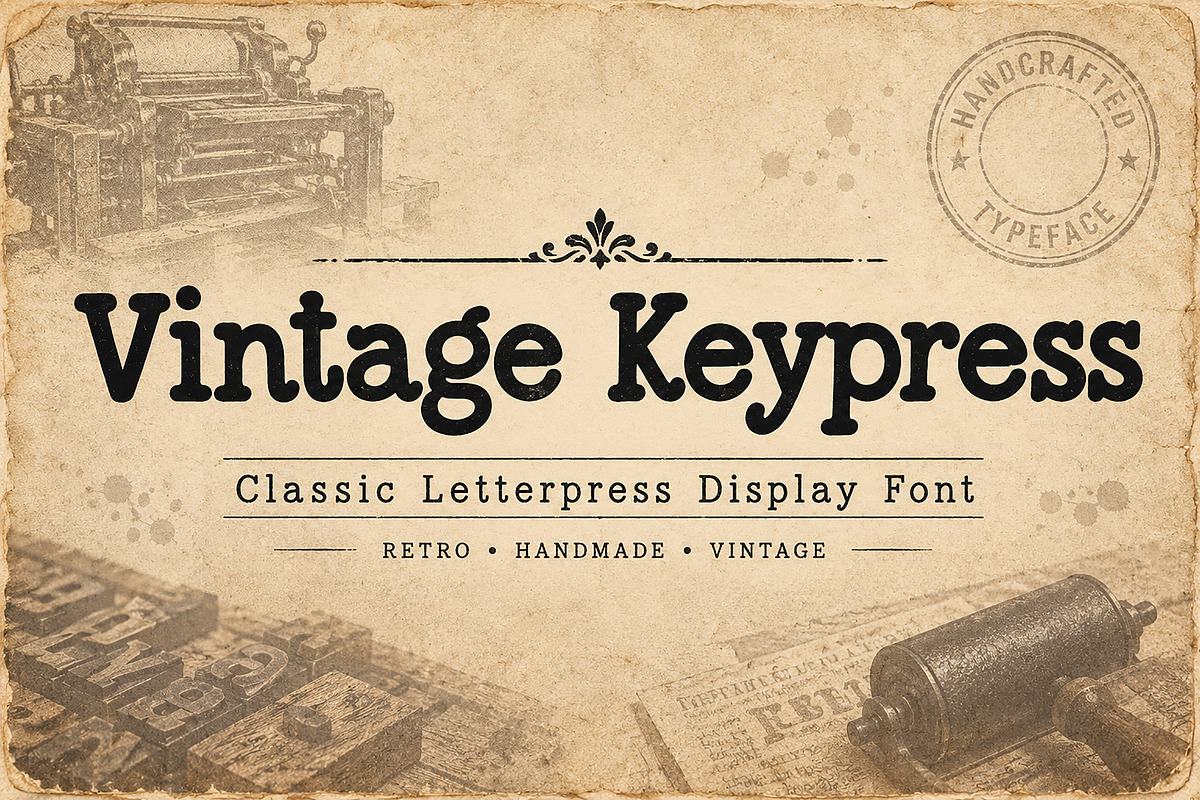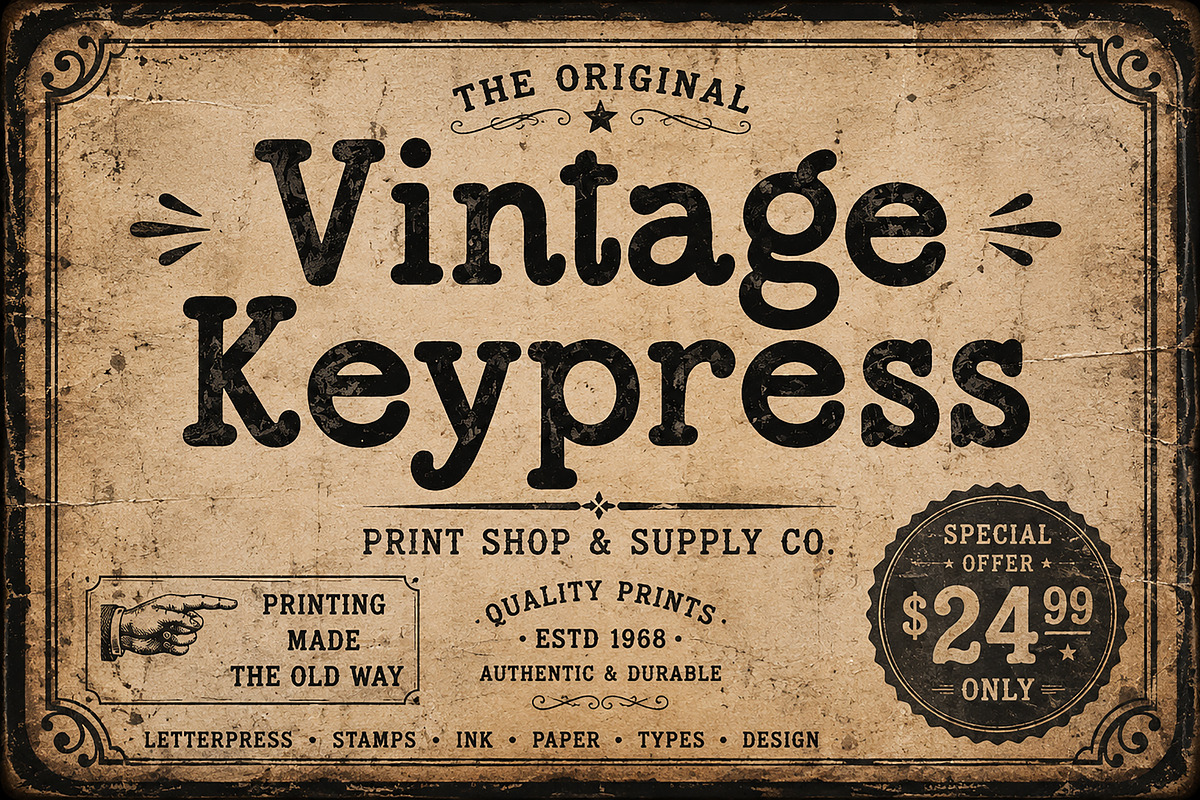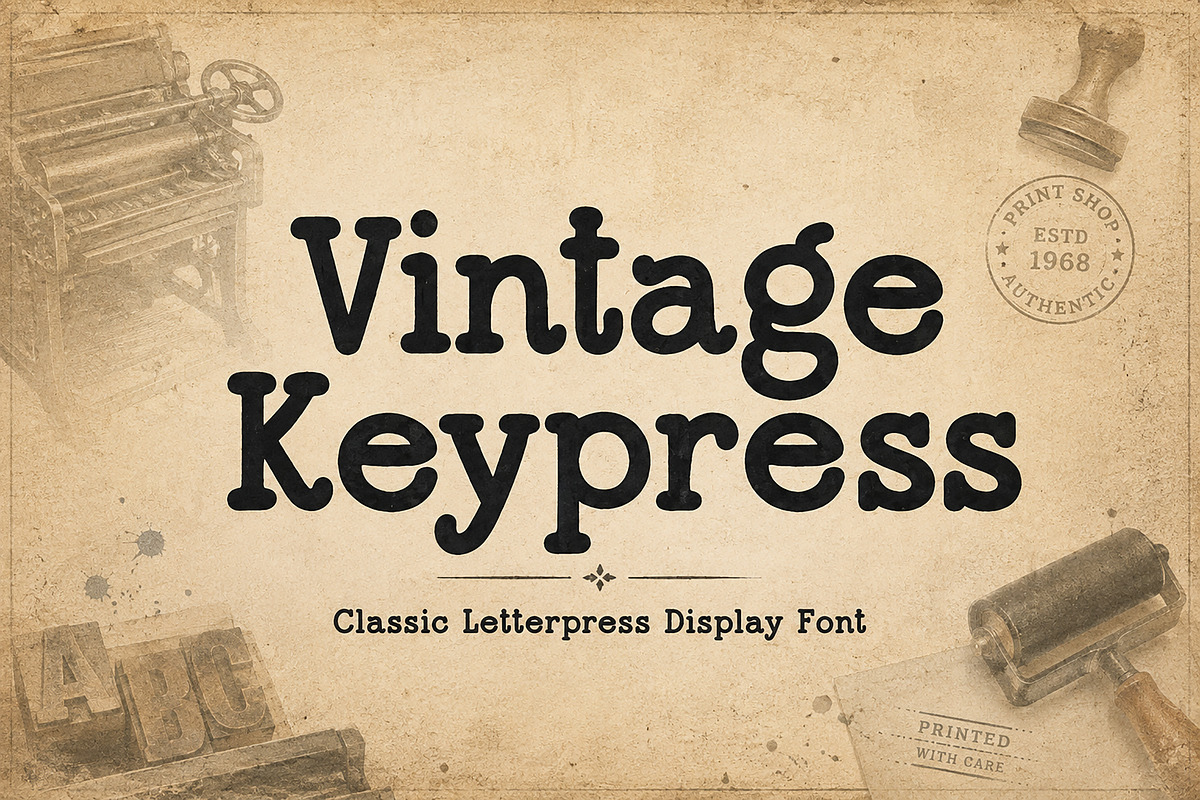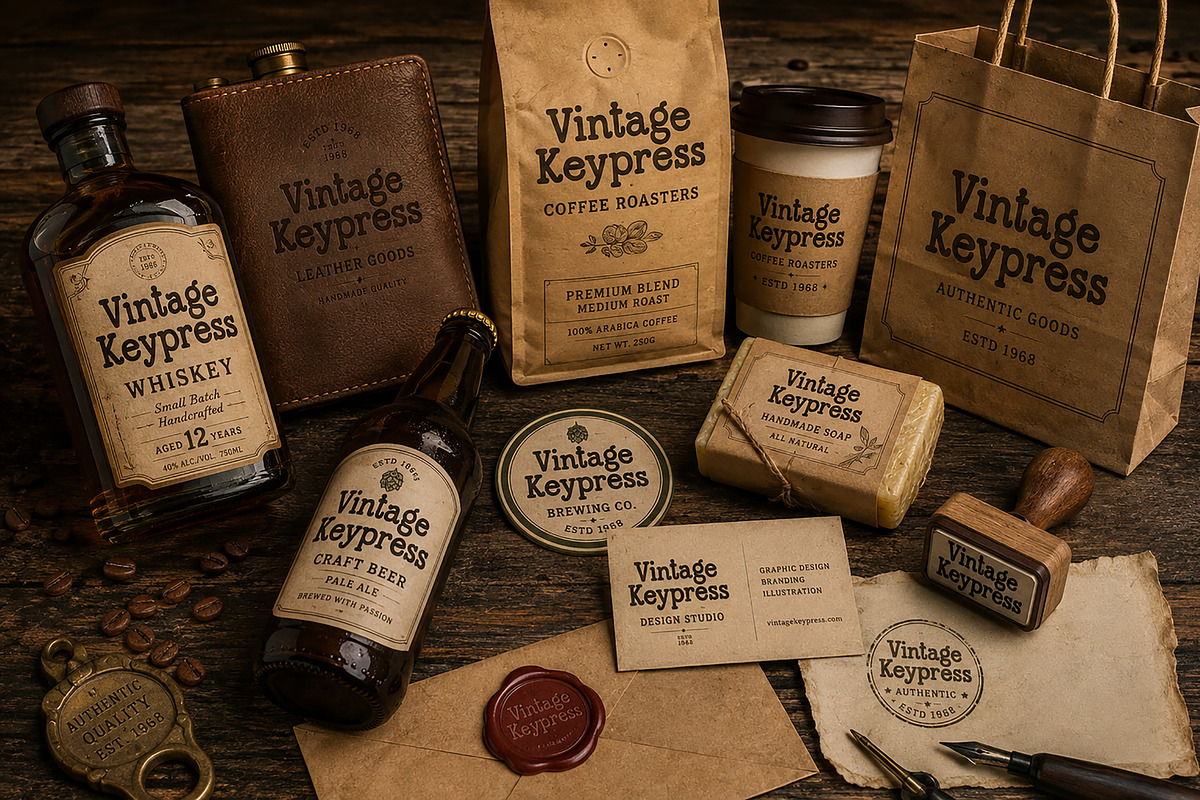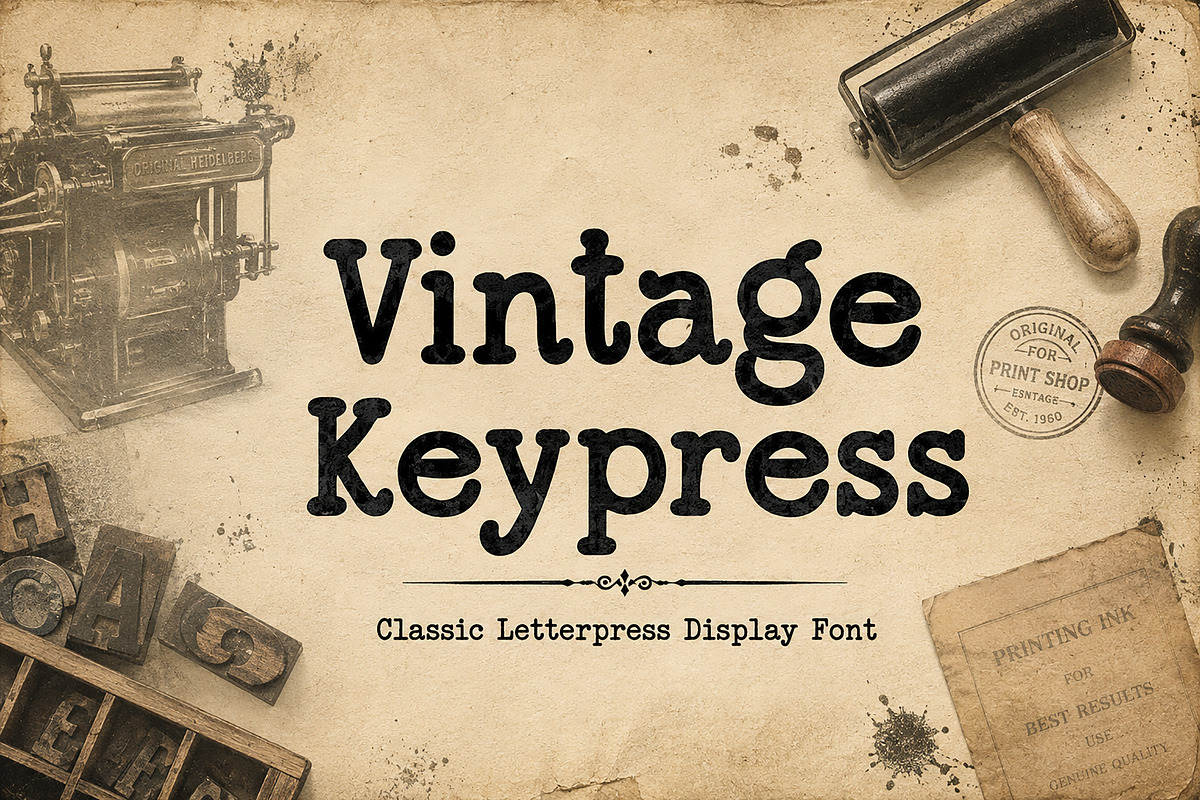
Vintage Keypress
Vintage Keypress – Classic Letterpress Display Font
Bring timeless craftsmanship into your designs with Vintage Keypress, a bold display font inspired by traditional letterpress printing, vintage signage, and old print shop typography. Its rounded slab-style forms and handcrafted character make it an excellent choice for nostalgic branding, retro packaging, rustic labels, and eye-catching headlines.
Whether you're creating logos, coffee packaging, whiskey labels, barber shop branding, bakery designs, craft beer labels, posters, or vintage-inspired merchandise, Vintage Keypress delivers a warm, authentic look that captures the charm of classic printmaking.
Perfect for designers looking to add a handcrafted retro aesthetic to both commercial and personal projects.
Vintage Logos
Coffee Branding
Whiskey Labels
Craft Beer Packaging
Barber Shop Branding
Bakery & Café Designs
Farmers Market Products
General Store Branding
Antique Shop Signage
Retro Posters
Print Shop Graphics
T-Shirt Designs
Stickers
Labels
Editorial Headlines
Branding Projects
Classic Letterpress Display Style
Vintage & Retro Inspired
Bold Handcrafted Character
Clean and Easy to Read
Perfect for Logos & Headlines